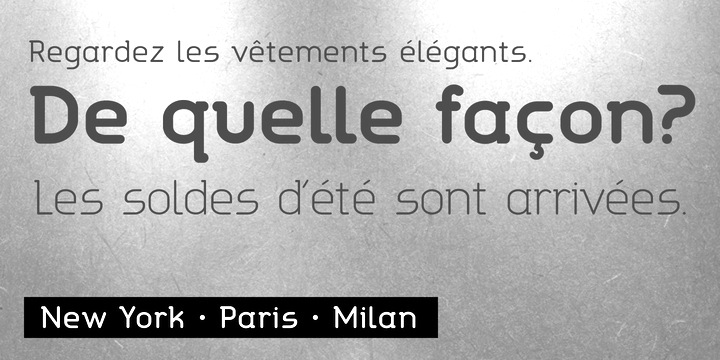
Ryan Lyse
Designer in Los Angeles, who created the Portsmouth typeface (2012), which is based on the letters he designed for the Portsmouth Brewery logo while studying at UCLA. It was published in 2012 by Open Window and by Rocket Type (with Dathan Boardman).
In 2013, Ryan co-designed the round-edged display typeface family Aldin with Dathan Boardman of Open Window. The poster typeface Portsmouth Second Fleet (2013, +Textured, by Ryan Lyse and Dathan Boardman) is the rag tag, wild bunch companion to Portsmouth.
Typefaces from 2019: Delmonico (a vintage typeface by Dathan Boardman and Ryan Lyse).